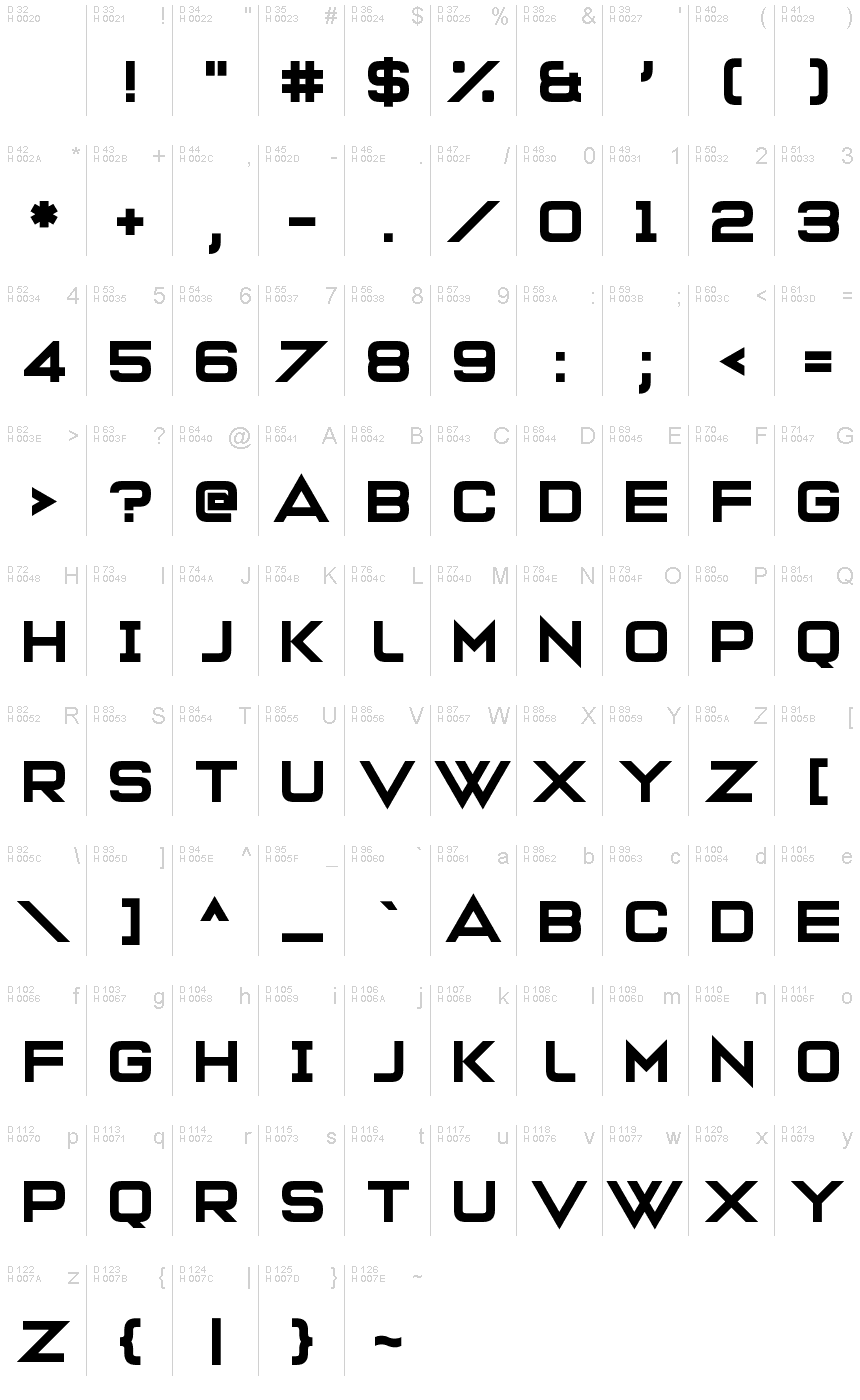
Venite Adoremus Straight
Venite Adoremus Straight, from the Venite Adoremus font family designed by Chequered Ink, carries a distinctly futuristic vibe that commands attention. Its expanded width and clean lines combine to create a sense of grandeur and modernity. The boldness of each character speaks to its display type nature, ideally suited for making statements in branding, advertising, or any project where impact is key.
The font's well-structured form exudes a sleek aesthetic appeal, with sharp angles and a harmonious balance between negative space and solid letterforms. This visual strength ensures legibility while allowing designers to push creative boundaries.
Whether deployed in digital landscapes or printed materials, Venite Adoremus Straight embodies versatility and forward-thinking design. It's not just a typeface; it's an assertive design tool poised to elevate the narrative of any creative endeavor it graces.